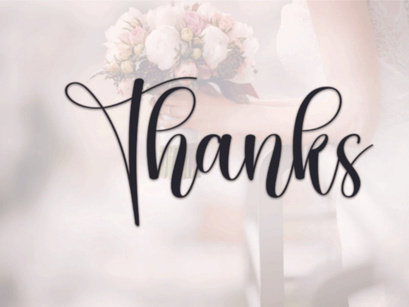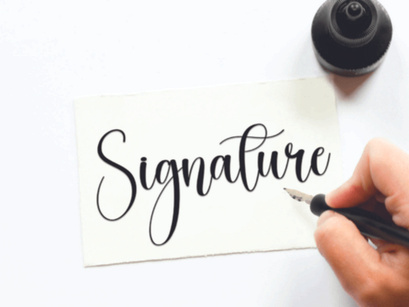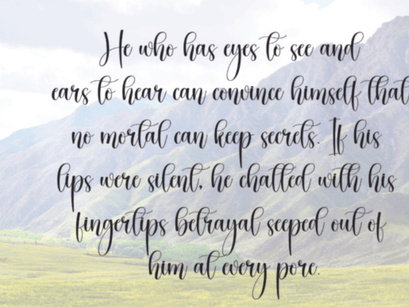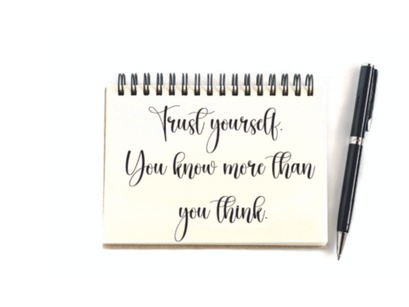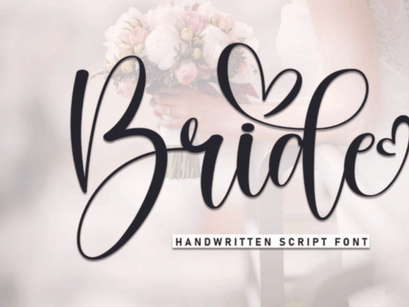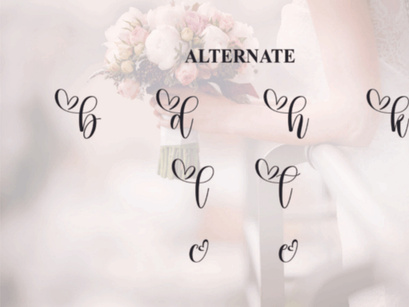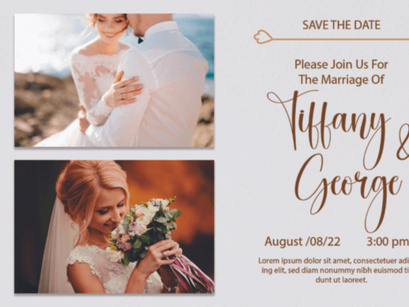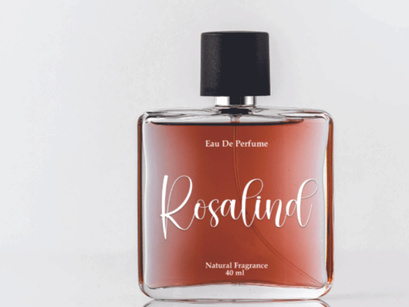
Bride is a lovely and timeless handwritten font. It is the best choice for creating eye catching logos, branding and quotes. Every letter has a unique and beautiful touch, which will make your design come alive!